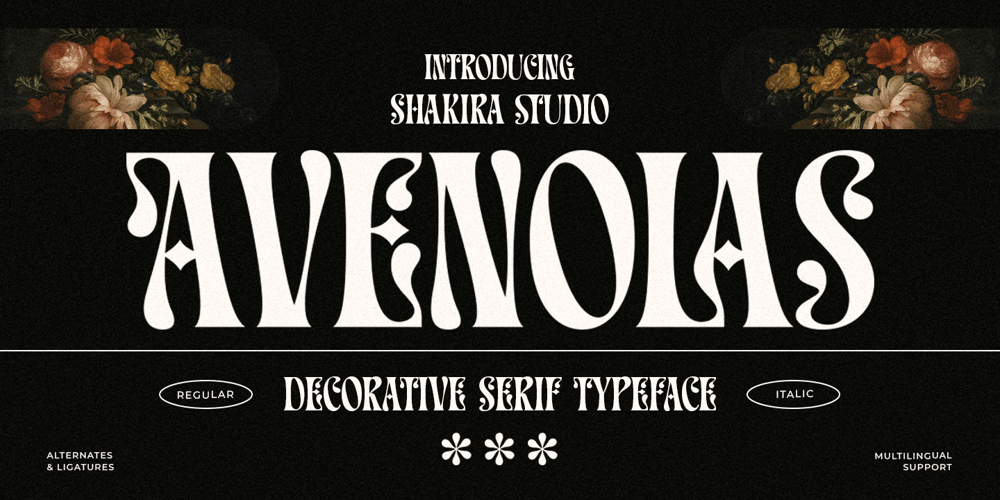
Avenolas
Avenolas font
Avenolas Font Family was designed by Idhham Cholid Rikzano Yahya and published by Shakira Studio. Avenolas contains 2 styles and family package options. Avenolas – Decorative Serif Display FontAvenolas is a decorative serif display font that blends uniqueness and elegance, designed to bring both classic and modern touches to any design. Equipped with alternates and ligatures, this font offers flexibility for designers to create diverse and captivating compositions.Avenolas is perfect for branding, posters, magazines, product packaging, signage, and other print designs that require a distinctive and characterful appearance. With multilingual support, it ensures compatibility with various languages.If you’re looking for a font that delivers a vintage, stylish, and artistic impression, Avenolas is the perfect choice for your design projects!Here’s what you get:- Regular & Italic- All Multilingual symbol- Opentype features ( ligature, alternate )- Accessible in the Adobe Illustrator, Adobe Photoshop, Adobe InDesign, even work on Microsoft Word.- PUA Encoded Characters – Fully accessible without additional design software.Multilingual character supports : (Afrikaans, Albanian, Catalan, Croatian, Czech, Danish, Dutch, English, Estonian, Finnish, French, German, Hungarian, Icelandic, Italian, Lithuanian, Maltese, Norwegian, Polish, Portuguese, Slovenian, Spanish, Swedish, Turkish, Zulu)Follow my shop for upcoming updates, and for more of my work, If you need a custom license or have questions please visit our website: www.shakirastudio.comThank you!Shakira Studio